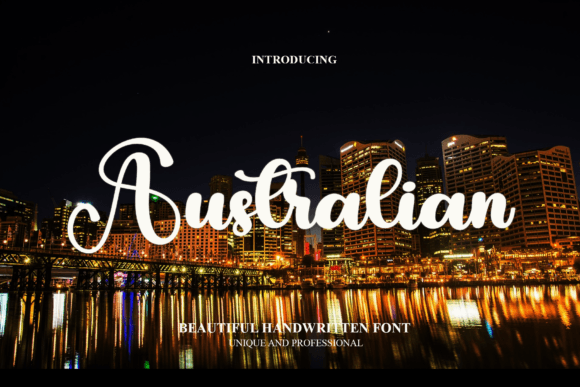
Welcome to the world of Australian Fonts, where charm and sophistication intertwine to create a typographic masterpiece. Our meticulously crafted script font family is a visual symphony that dances across your screen, leaving a trail of elegance and beauty in its wake.
Immerse yourself in the allure of Australian Fonts, a collection that embodies grace and delicacy. These fonts are not mere letters; they are works of art, designed to elevate your designs to new heights of refinement. With their smooth curves and intricate details, Australian Fonts possess an inherent charm that will captivate your audience.
Unleash your creativity and let Australian Fonts transform your designs into visual masterpieces. Picture your wedding invitations adorned with the flowing strokes of Australian Fonts, conveying a sense of timeless romance. Envision your social media posts adorned with the whimsical charm of Australian Fonts, captivating your followers with their undeniable allure.
Step into the realm of possibility with Australian Fonts. Whether you're crafting logos, brochures, or website designs, our fonts will elevate your work to new levels of sophistication. Their versatility knows no bounds, allowing you to effortlessly create designs that are both visually striking and deeply impactful.
Experience the magic of Australian Fonts today. Discover the power of typography to transform your designs into works of art. Let your imagination soar as you explore the endless possibilities that await you within this exquisite font family.